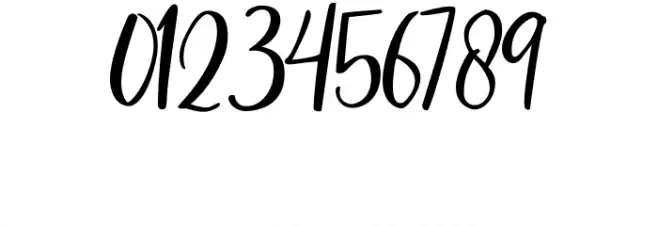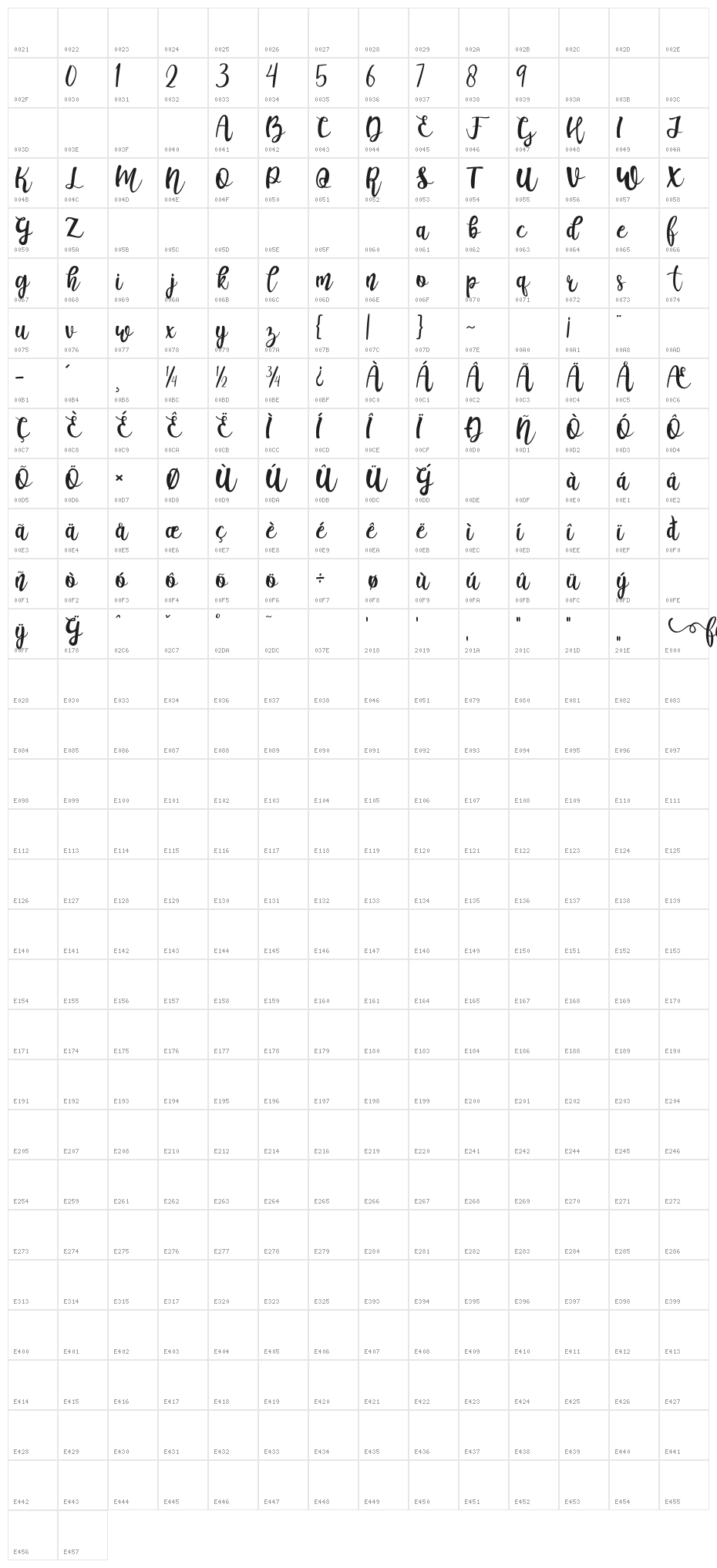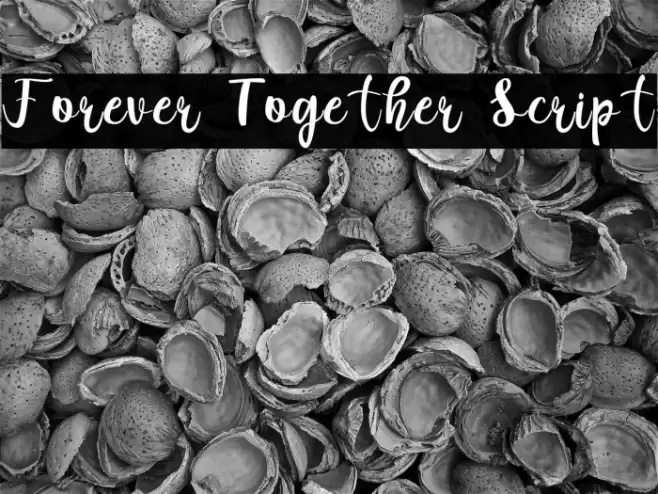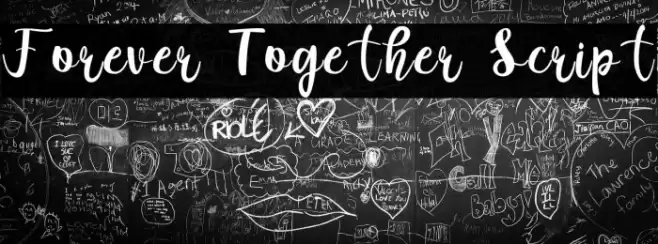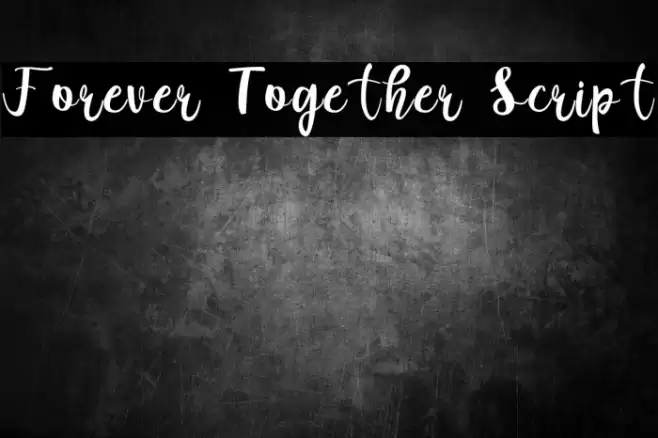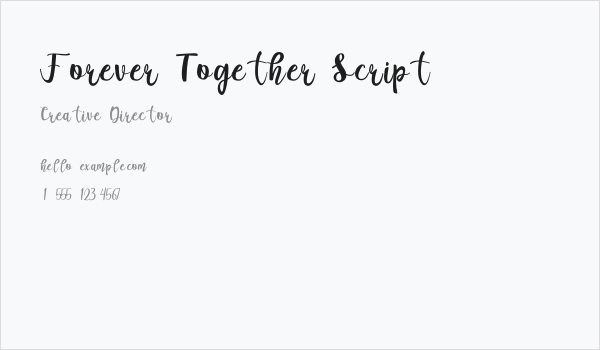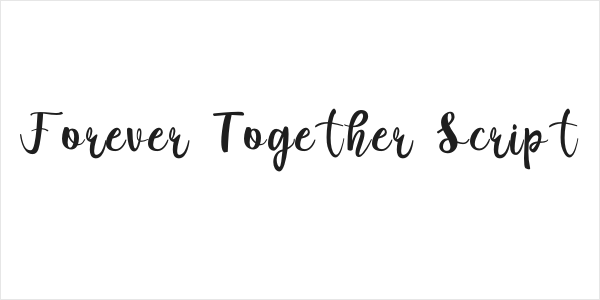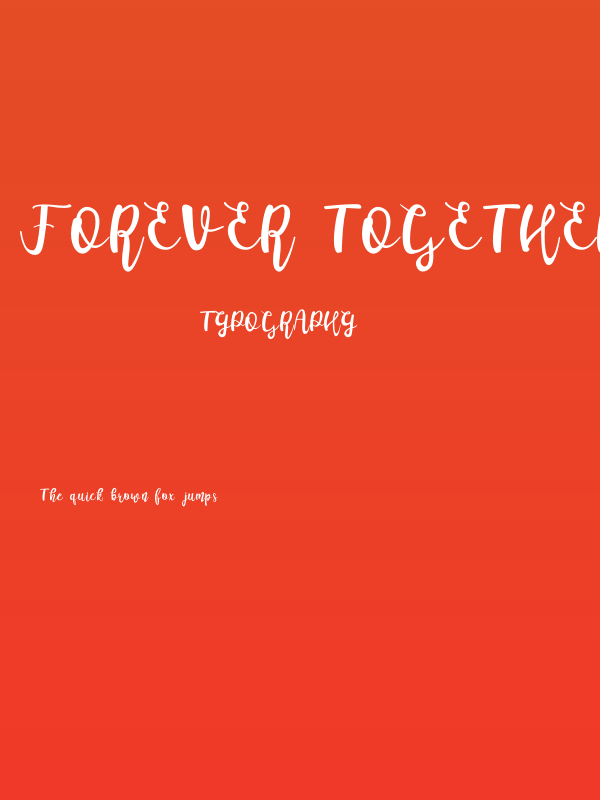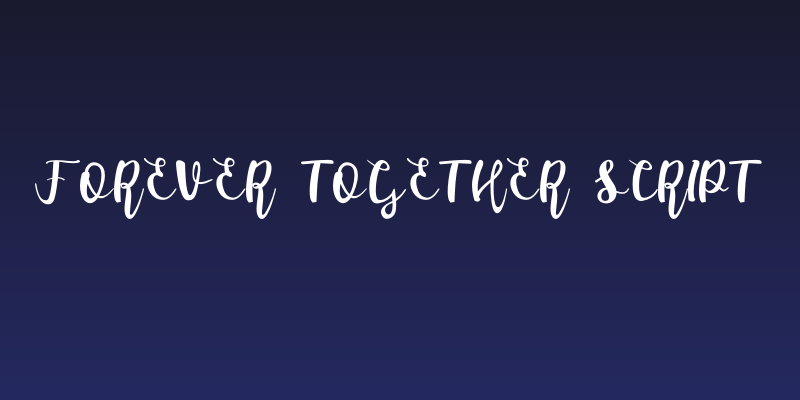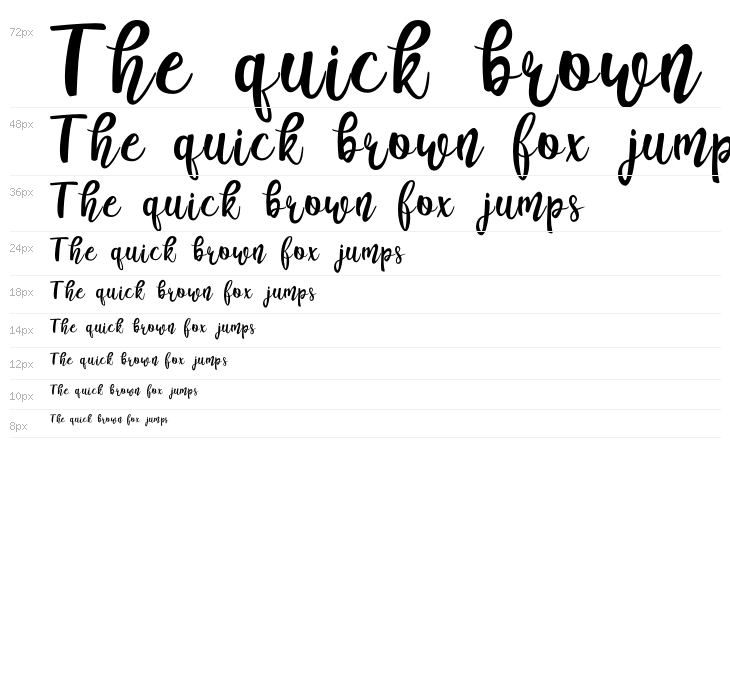
Forever Together Script Font
Forever Together Script Description
This elegant script font features a flowing, cursive style with smooth, connected letters that evoke a sense of grace and sophistication. The uppercase letters are bold and slightly slanted, while the lowercase letters maintain a consistent flow with delicate loops and curves. The numbers are designed to complement the letters, maintaining the same fluidity and style. This font is perfect for creating a romantic or elegant atmosphere, making it ideal for wedding invitations, greeting cards, or any project that requires a touch of class and elegance.
| Overall Style | Elegant, Romantic |
| Use Case | Headlines, Invitations, Branding |
| Proposed Projects | Ideal for wedding invitations, greeting cards, branding, and elegant designs. |